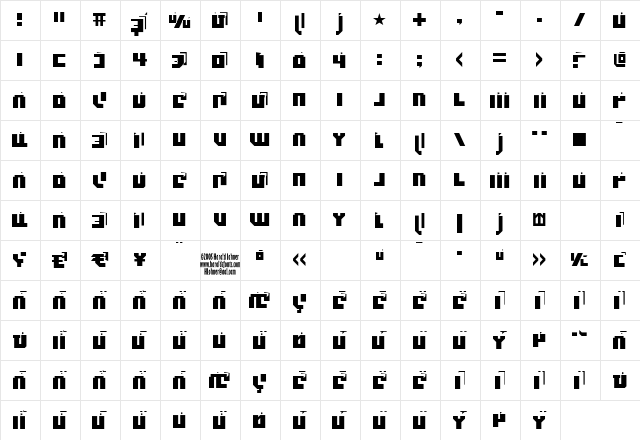
BlockedFront Regular
| Copyright | BLOCKED computer fonts v1.1 000, 2005 Harold Lohner "  "https://www.haroldsfonts.com Adaptation of the "lost" Letraset font "BlockUp," designed by Sally Ann Grover and 74 Letraset in analog form. |
Design Context for BlockedFront Typeface
BlockedFront is a composed and adaptable typeface that performs quietly and consistently across a wide range of design contexts.